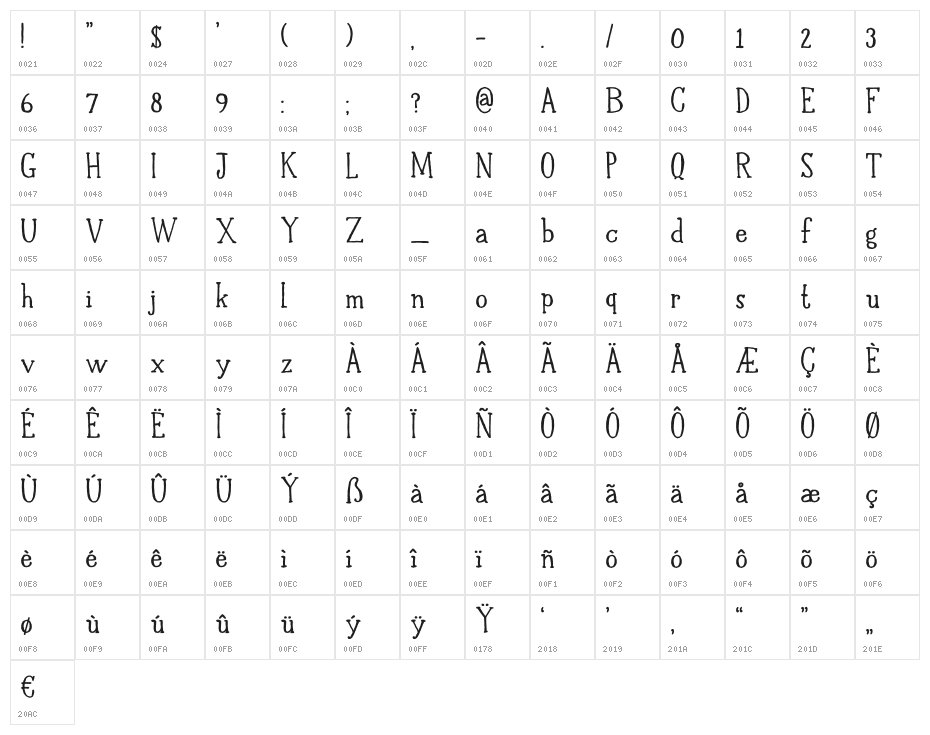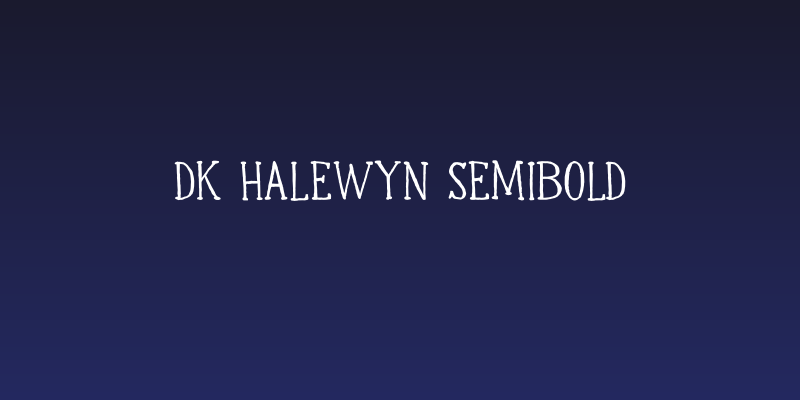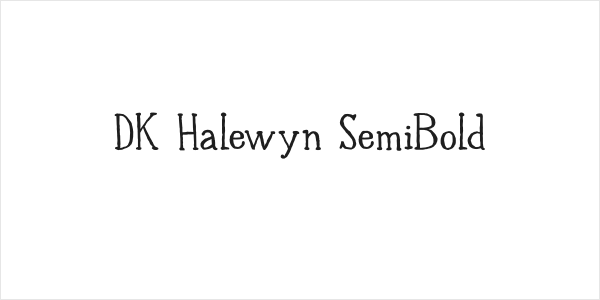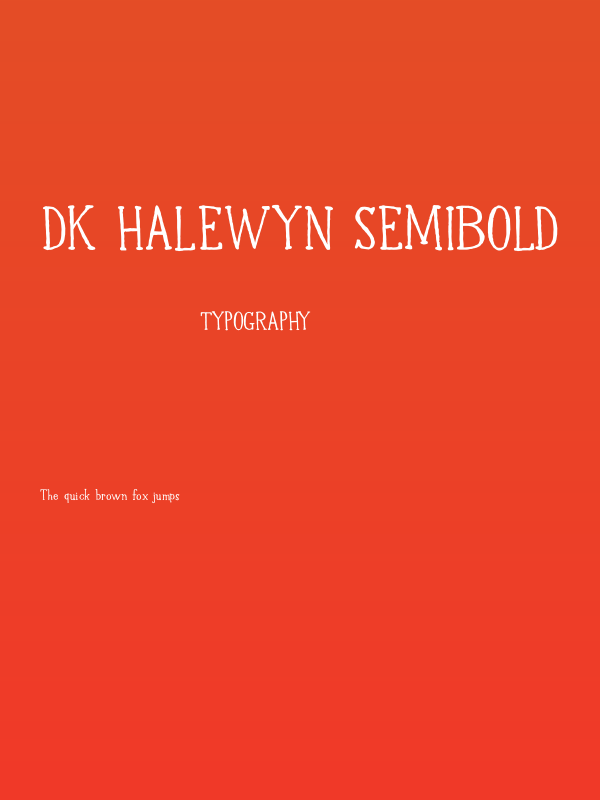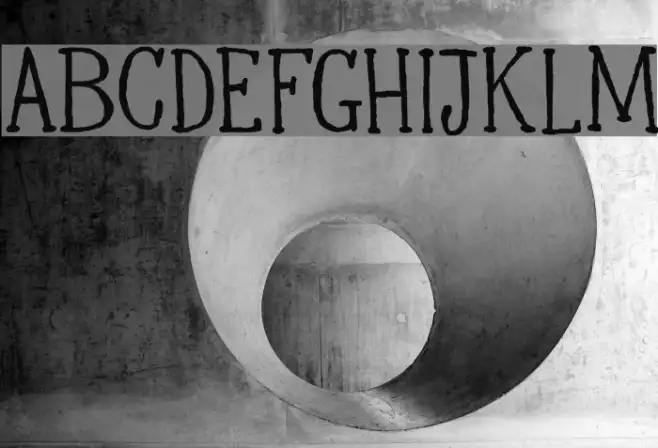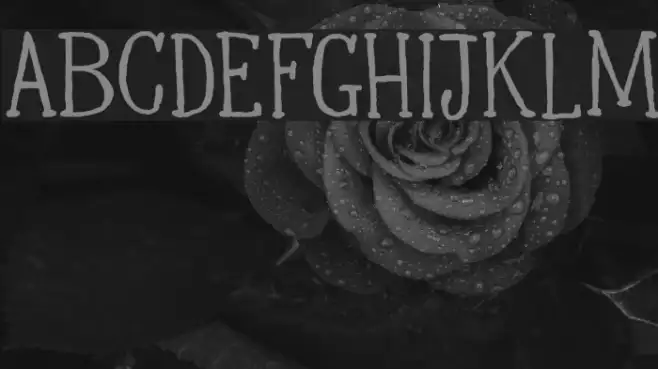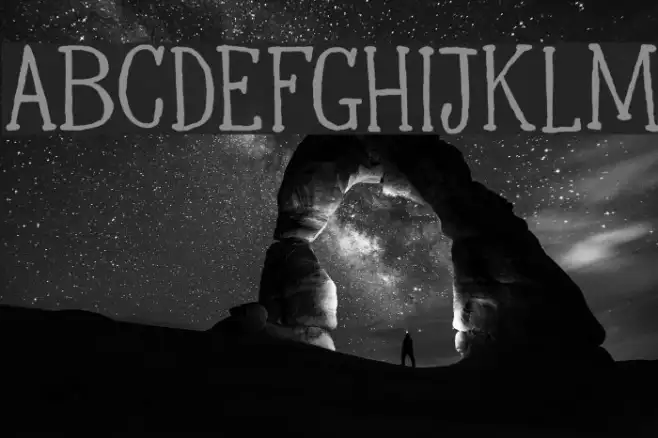
DK Halewyn SemiBold Font
DK Halewyn SemiBold Description
This font features a distinctive, hand-drawn aesthetic with a slightly irregular and organic feel. The uppercase letters are tall and narrow, with a whimsical touch that adds character. The lowercase letters maintain a consistent style, with rounded edges and a playful, yet sophisticated appearance. The numerals are bold and clear, ensuring readability. Special characters are creatively designed, adding to the font's unique charm. This font is perfect for projects that require a personal and artistic touch, such as invitations, posters, and creative branding.
| Use Case | Headlines, Logos, Artistic projects |
| Proposed Projects | Ideal for invitations, posters, creative branding, and artistic projects. |